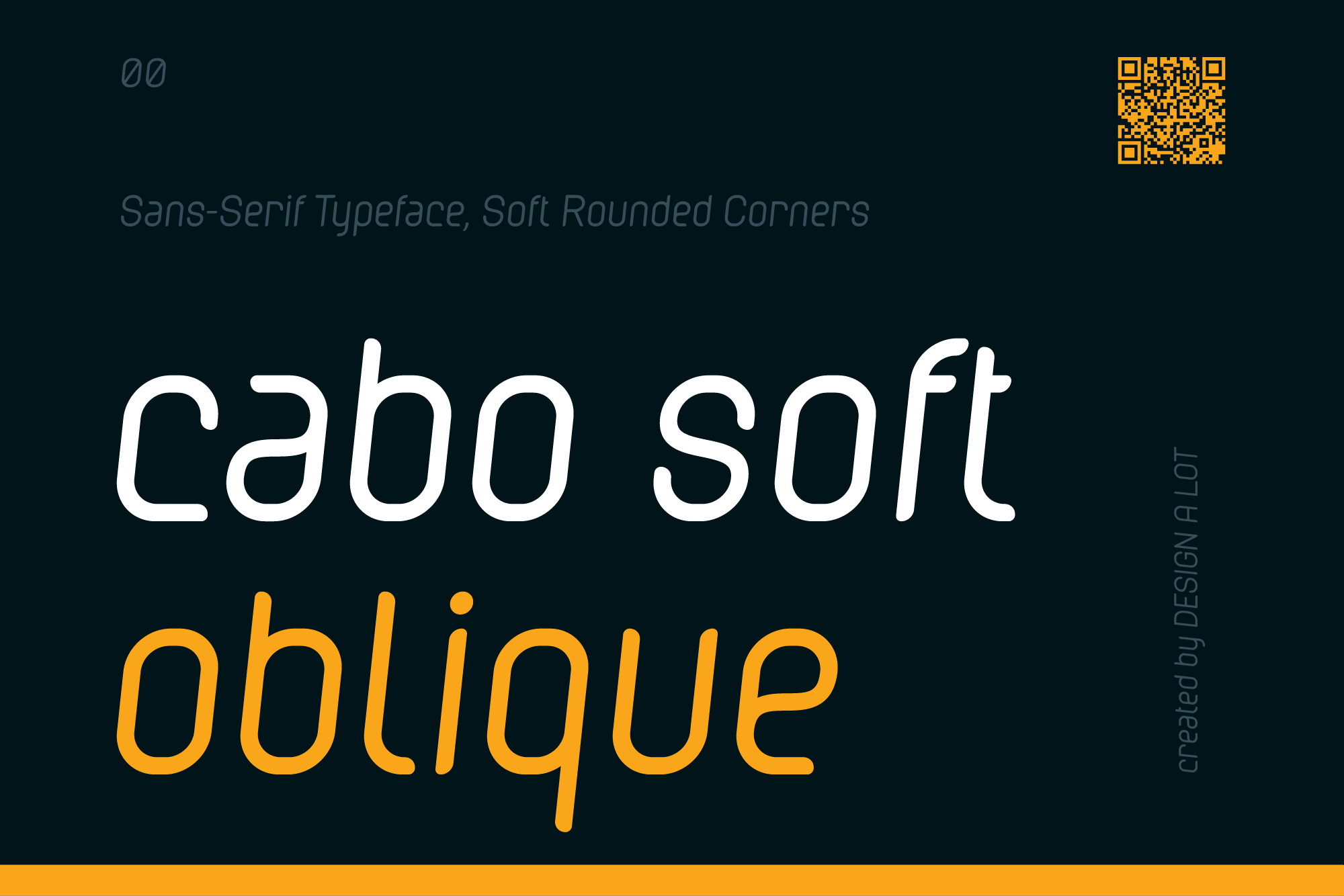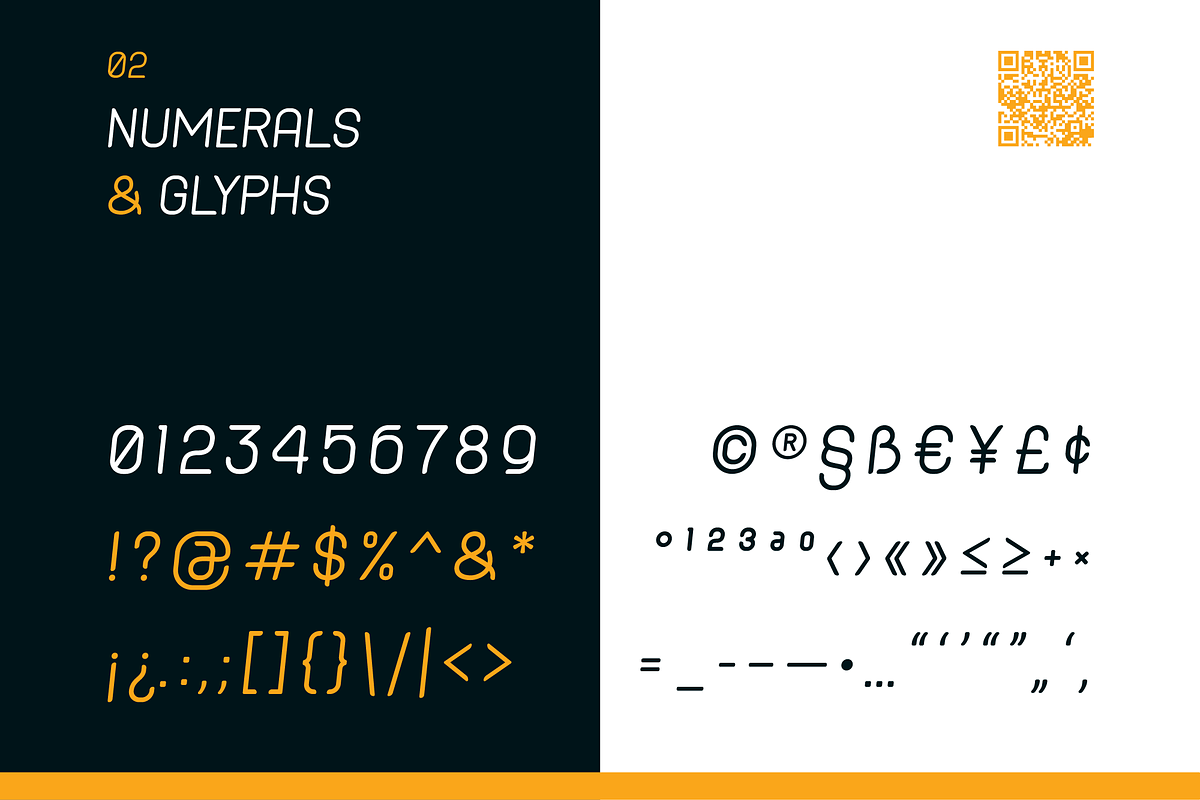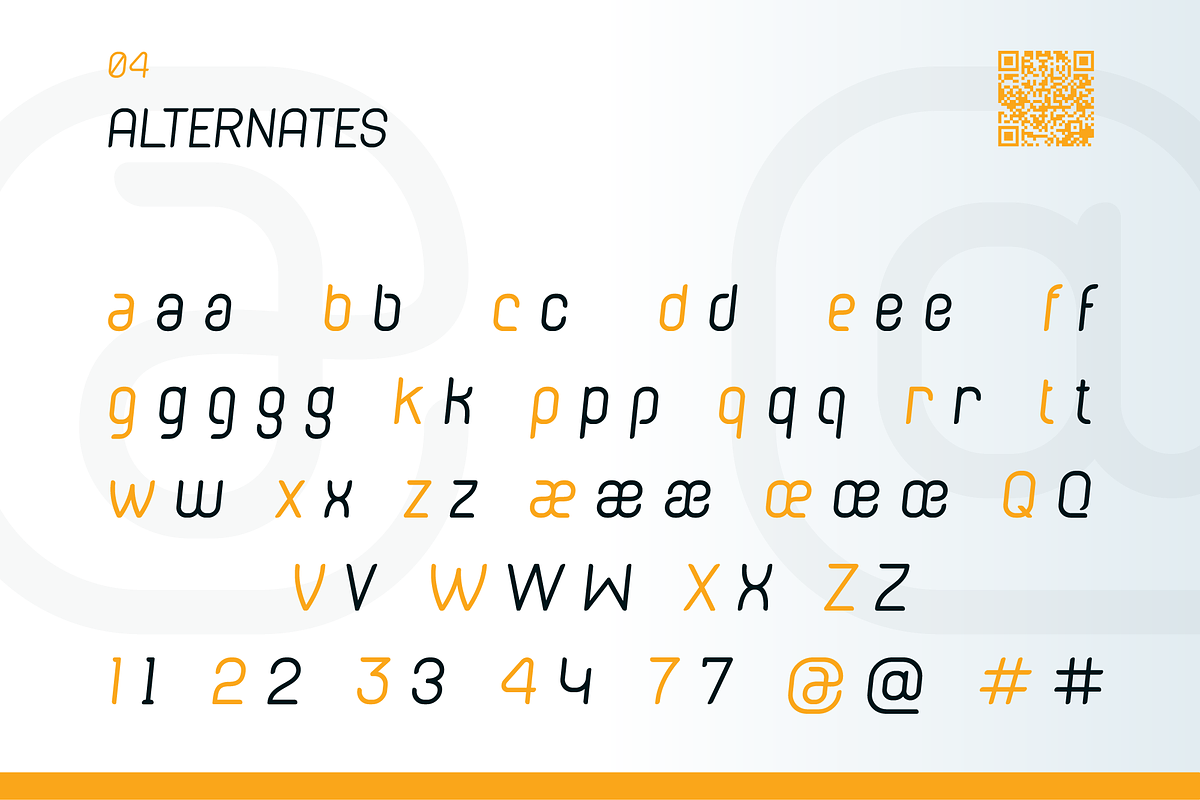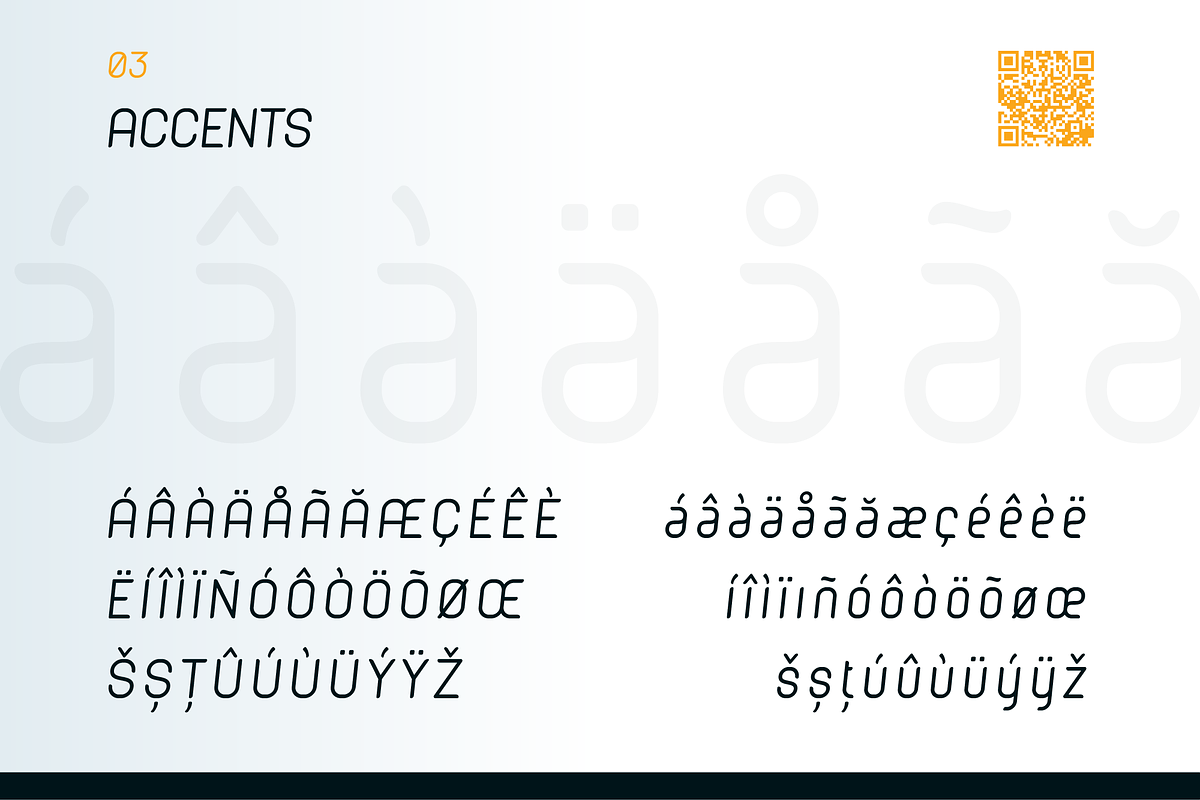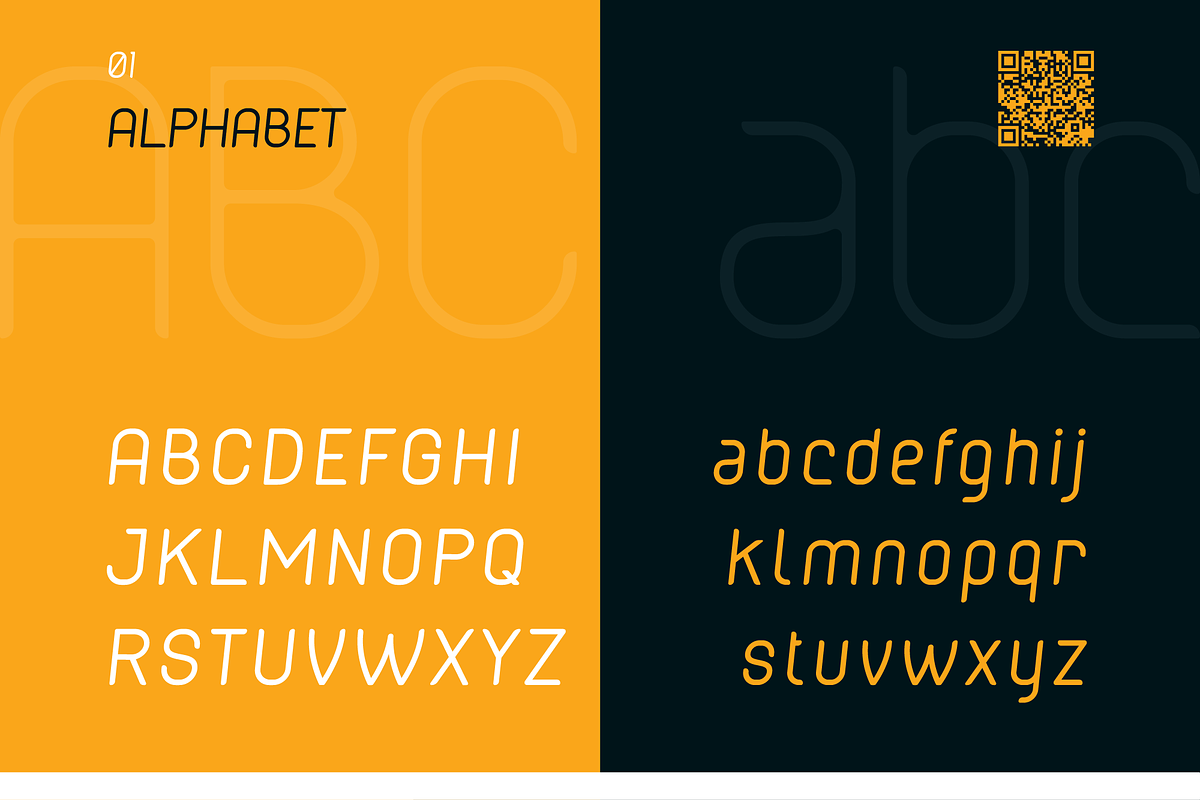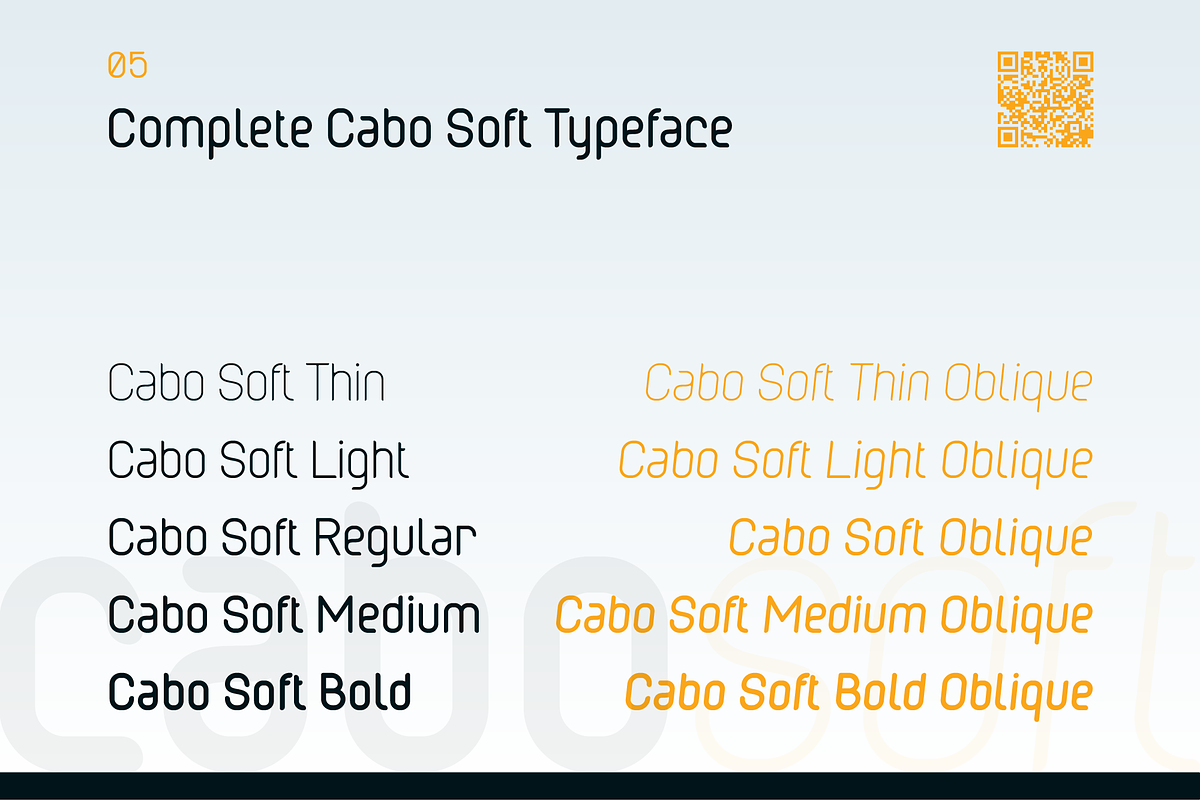
Cabo Soft Oblique Font
Introducing Cabo Soft Typeface – the upgraded version of our beloved Cabo Rounded Typeface, which first made waves back in 2015. We’re thrilled to present our latest typeface, where we’ve made numerous upgrades and updates, taking it to a whole new level of creativity and elegance!
This is the Cabo Soft Oblique Font style that is extracted from the complete typeface, which is intended to be sold separately for creatives that just want to purchase one style.
Cabo Soft Oblique Font Each of the style of our Cabo Soft Typeface includes a unique design with a soft and rounded style. It includes the entire letters, numbers, glyphs and accents of the Latin alphabet, like this:
- And alternates for the following glyphs: a b c d e f g k p q r t w x z æ œ Q V W X Z 1 2 3 4 7 @ #.
All of the fonts available in this typeface can adapt to any style and are perfect with written text, headlines, logo design, branding and more.
The complete Cabo Soft Typeface includes the following weights and styles:
- Cabo Soft Thin Font.
- Cabo Soft Thin Oblique Font.
- Cabo Soft Light Font.
- Cabo Soft Light Oblique Font.
- Cabo Soft Regular Font.
- Cabo Soft Oblique Font.
- Cabo Soft Medium Font.
- Cabo Soft Medium Oblique Font.
- Cabo Soft Bold Font.
- Cabo Soft Bold Oblique Font.